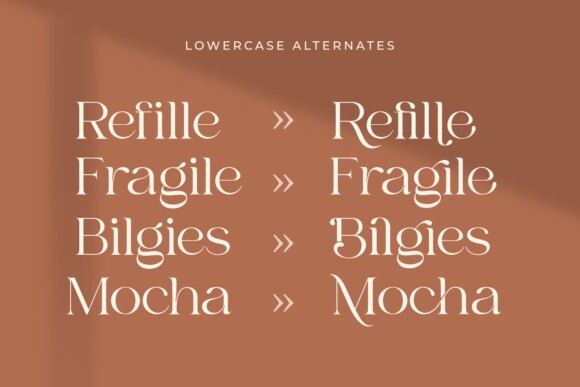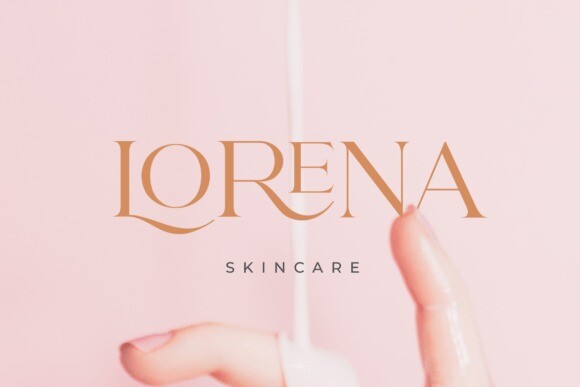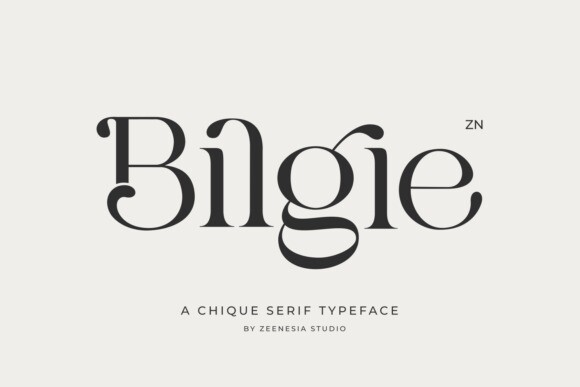
Bilgie Font
Bilgie Font, If you’re looking for a font that exudes elegance and sophistication, look no further than Bilgie. With its classic lines and ornate serifs, Bilgie adds a touch of refinement to any design project. From wedding invitations to book covers, this is a versatile choice that can be used in a variety of contexts to convey a sense of timelessness and tradition.